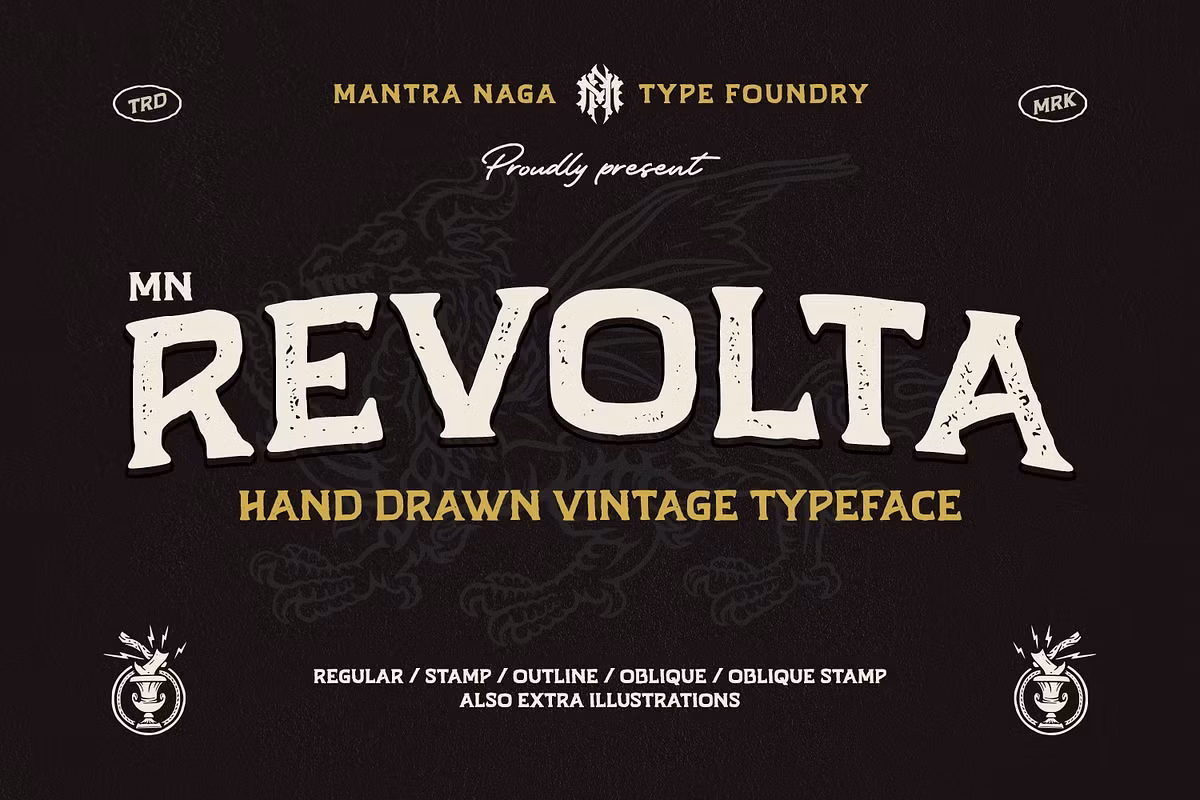
MN Revolta - Hand Drawn Vintage Font Free Download
MN Revolta - Hand Drawn Vintage Font Free Download is a creative and rustic typeface that combines hand-drawn, vintage elements with a modern twist. With its imperfect, slightly distressed strokes and unique character design, MN Revolta is perfect for retro branding, vintage logos, posters, t-shirt designs, and any project that calls for a handmade, nostalgic feel.
MN Revolta - Hand Drawn Vintage Font Free Download brings personality and character to your typography, offering a timeless look that combines the charm of vintage design with a contemporary edge. Whether you’re working on a retro logo, a nostalgic event invitation, or a unique product label, MN Revolta adds authenticity and flair. Download it today and give your next design a handmade, vintage-inspired touch!